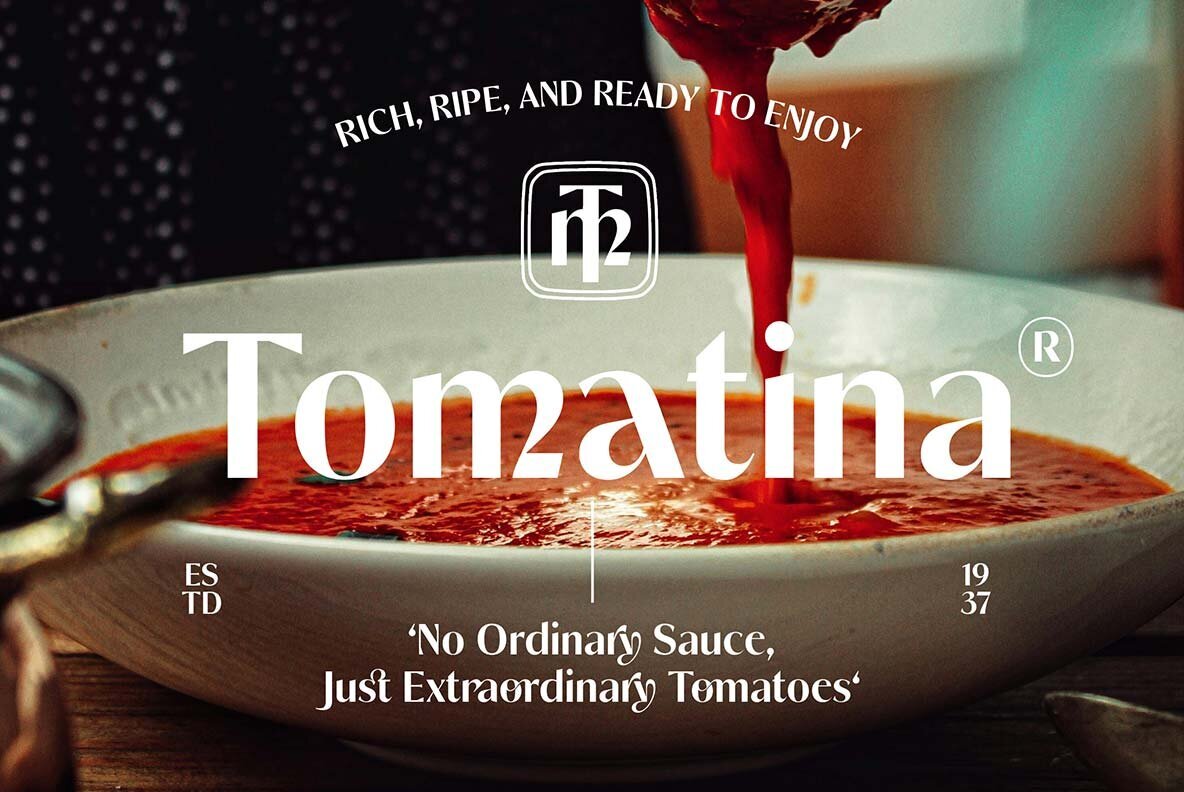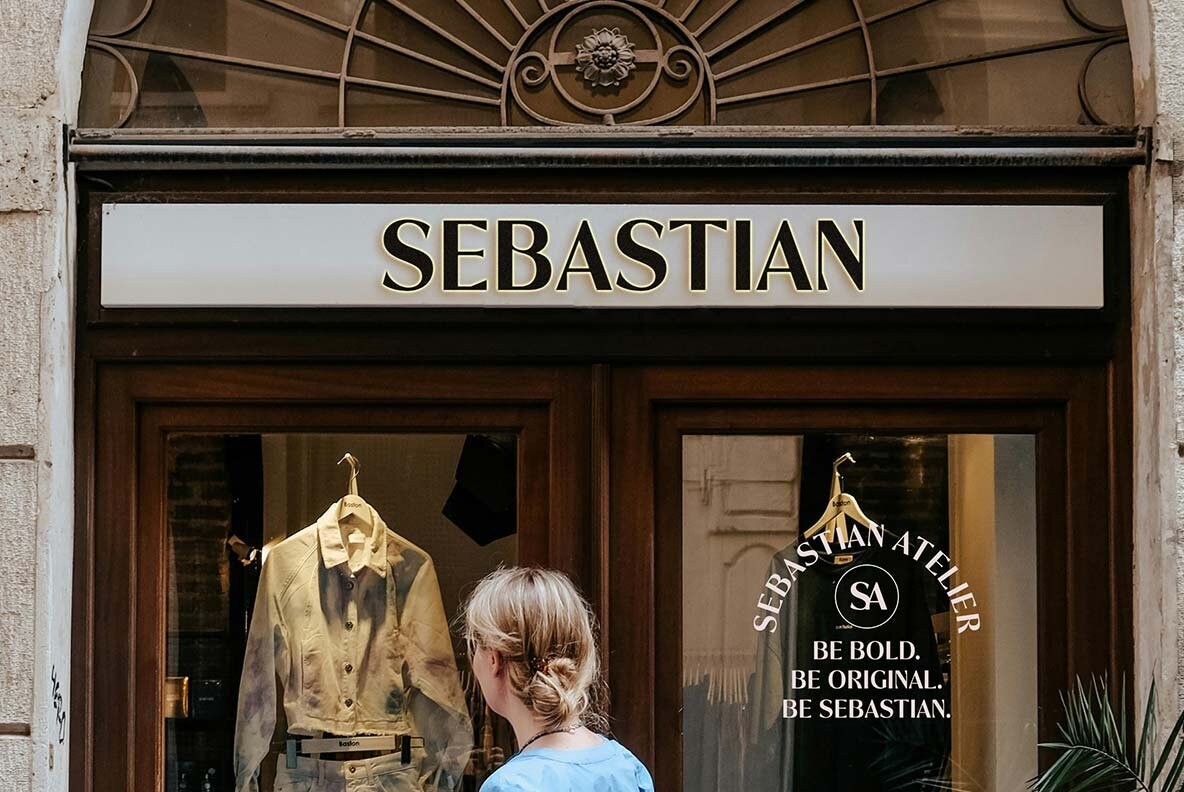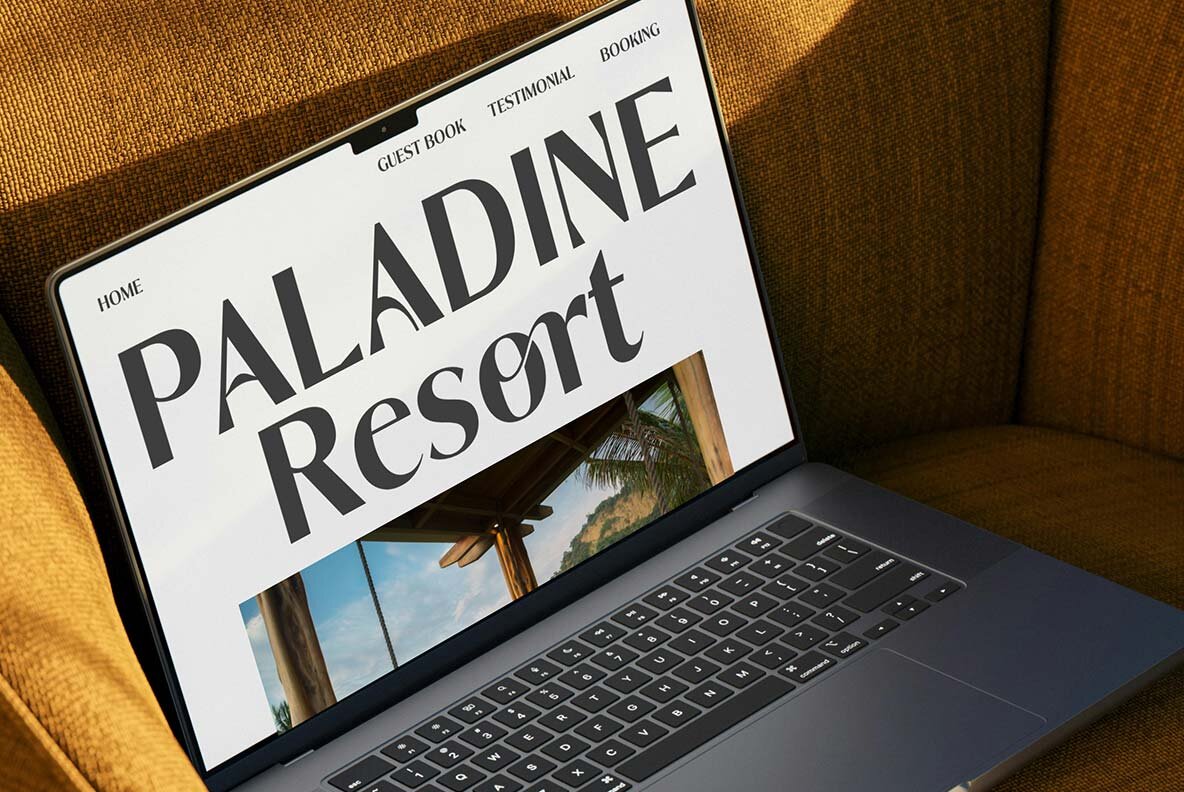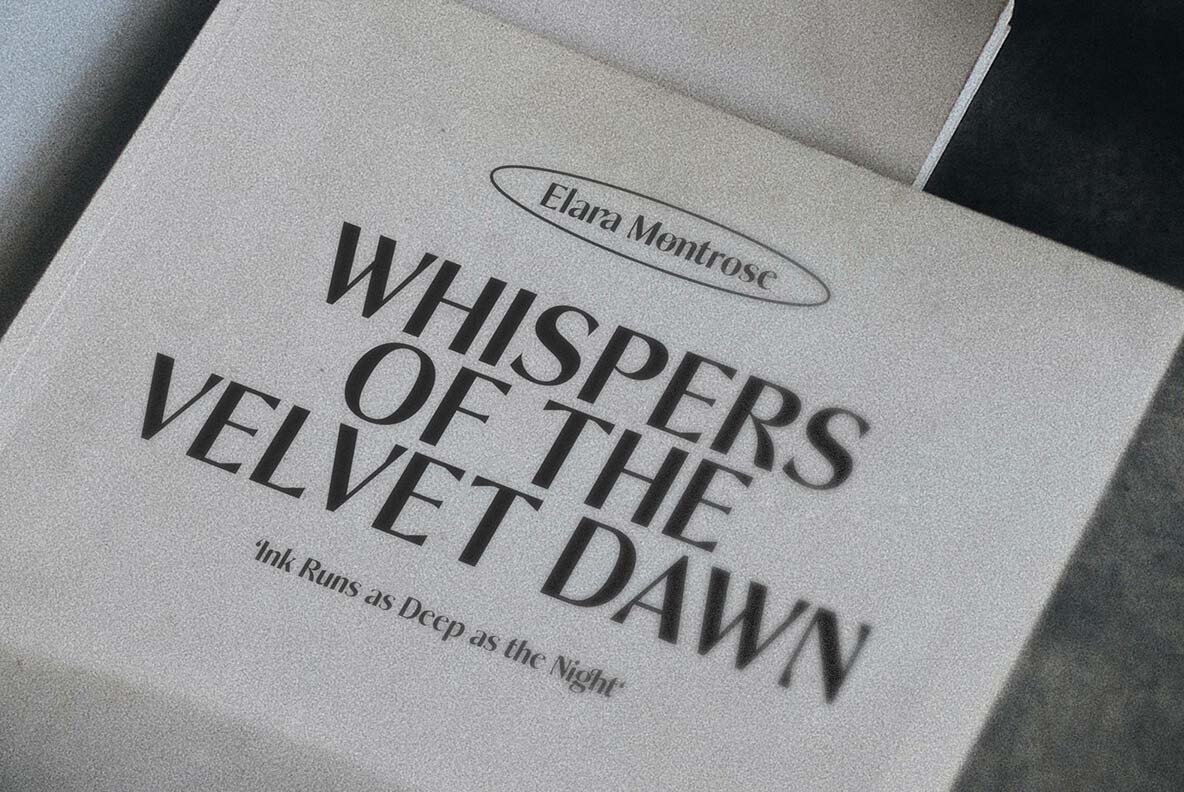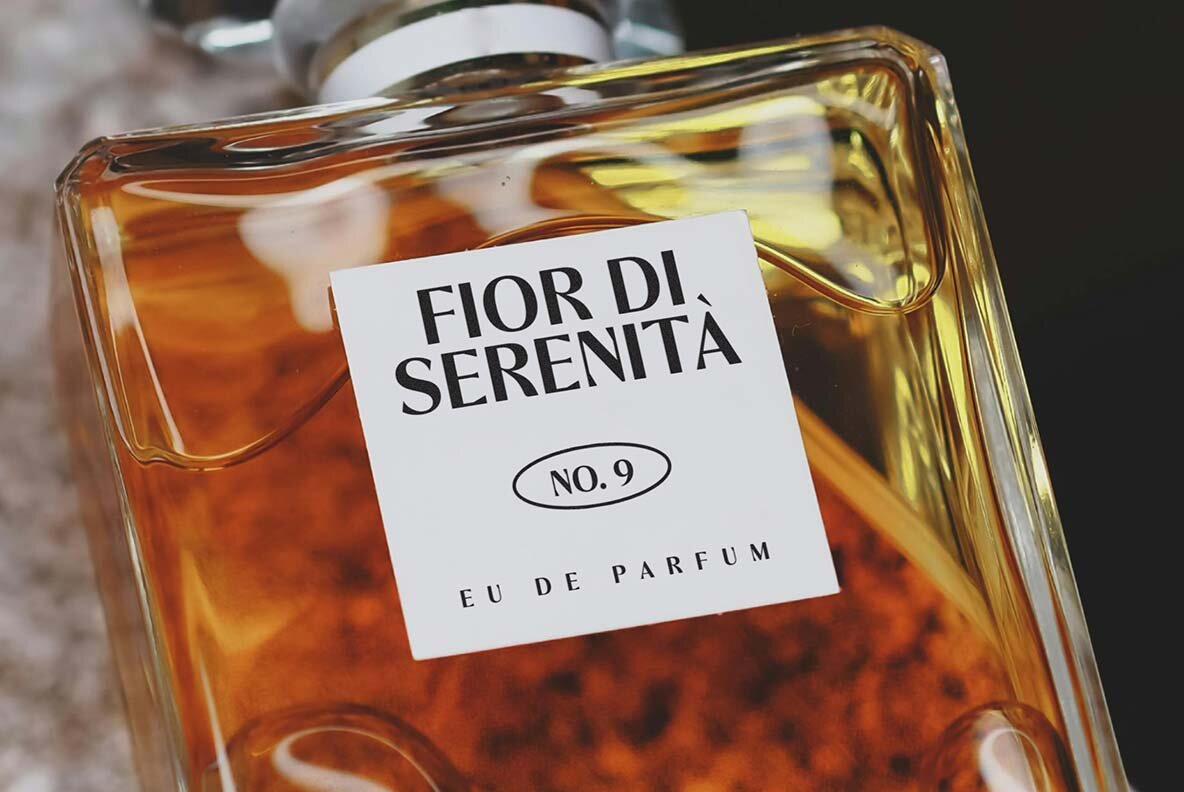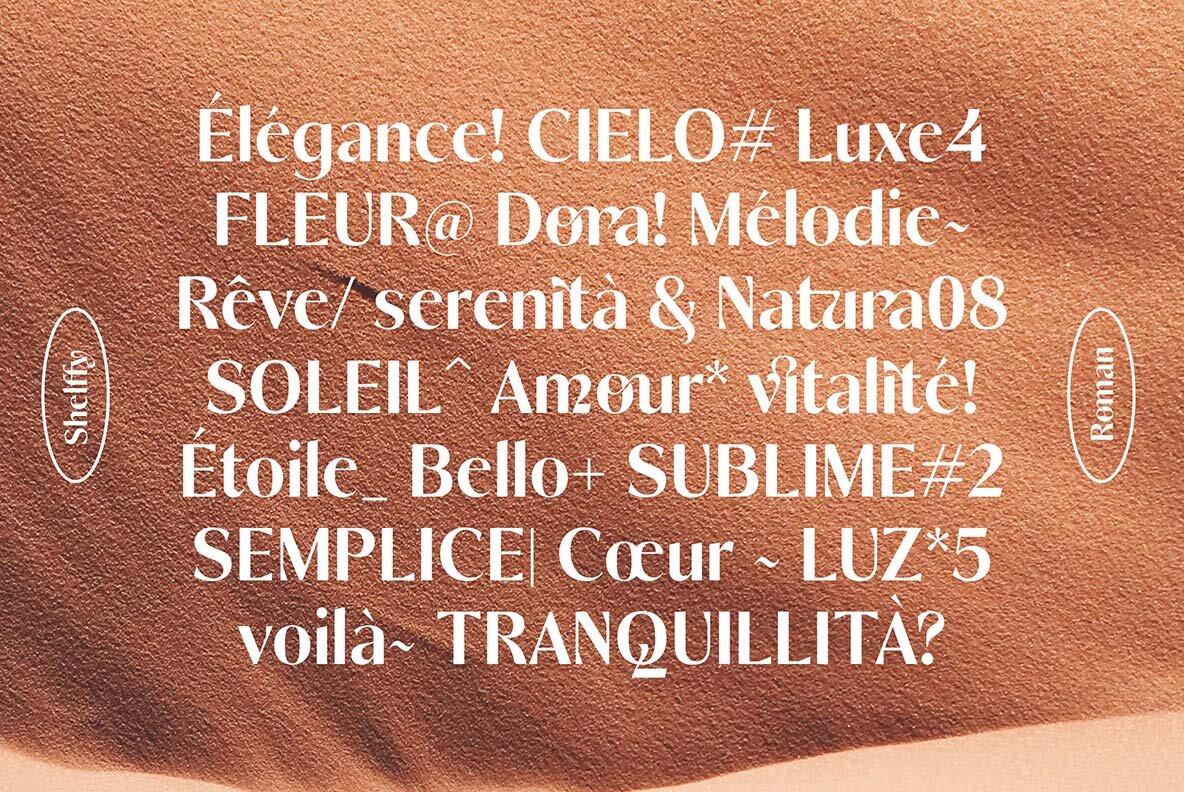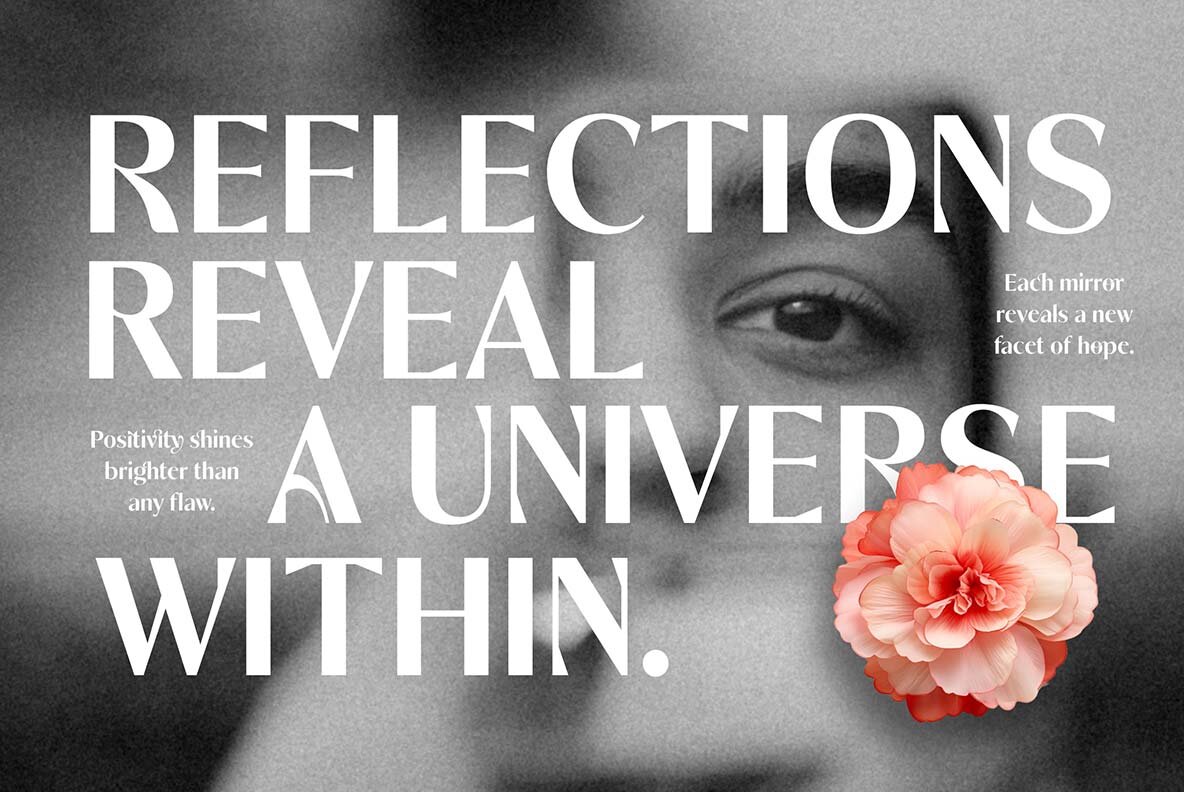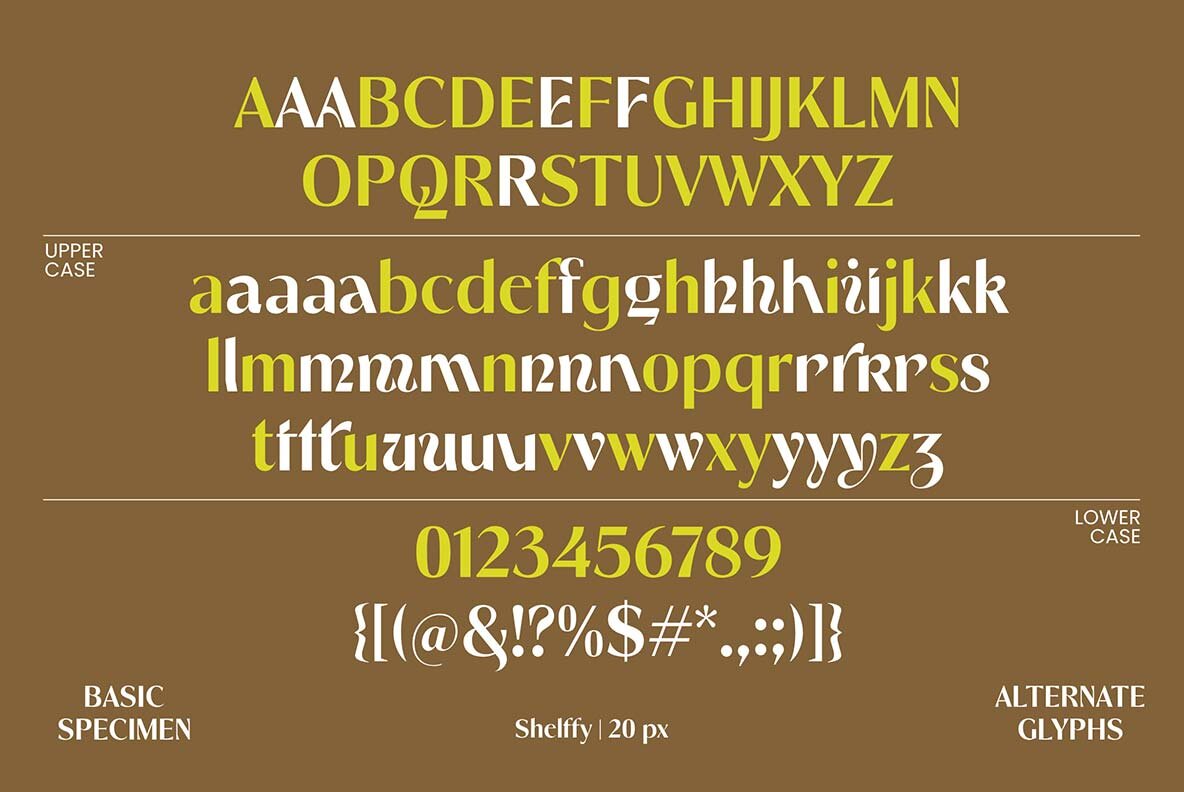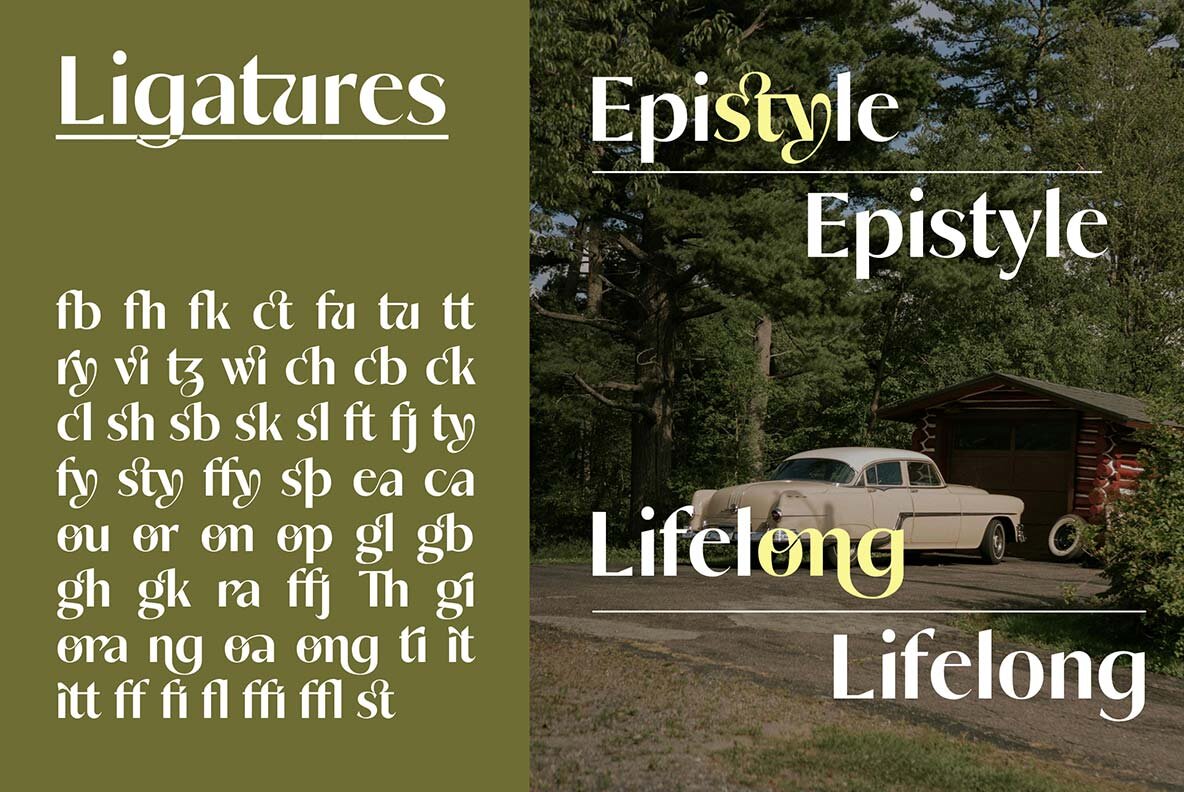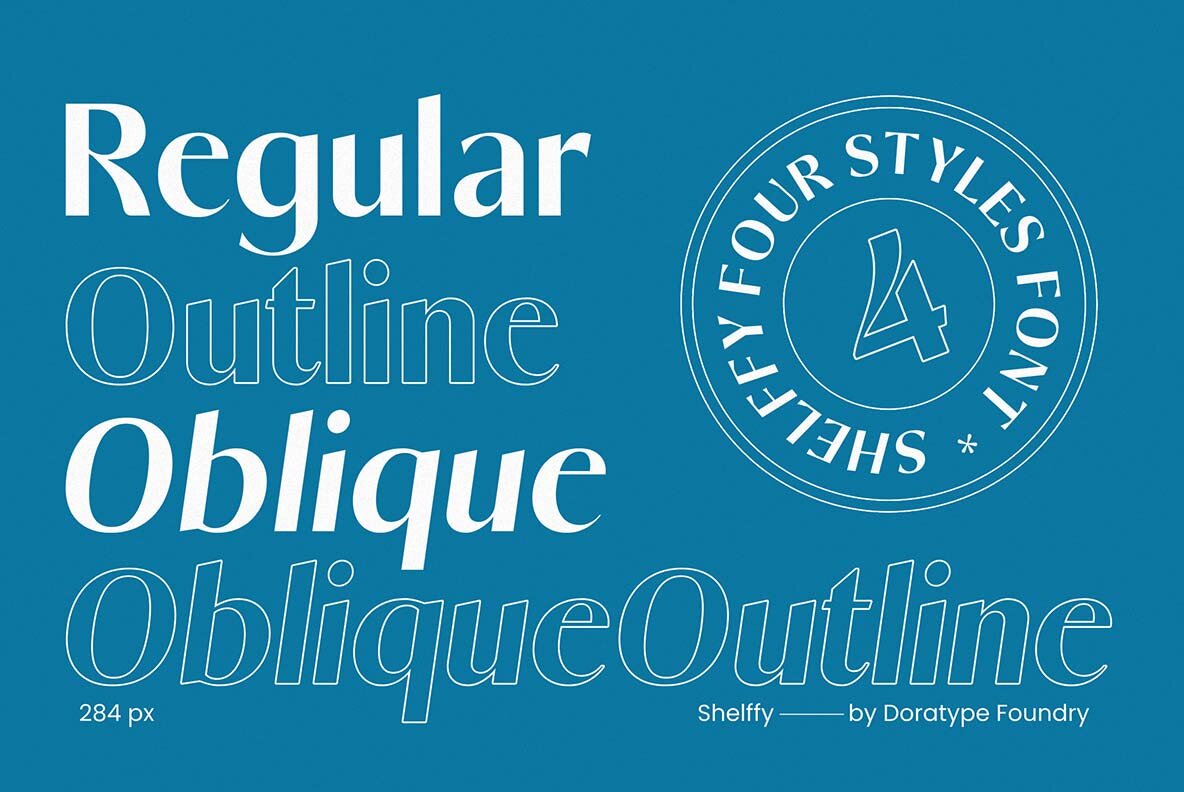
Shelffy Font
Shelffy is a Sans Serif display font that seamlessly combines balanced proportions with elegance. Its clean lines are crafted to capture attention without overwhelming the viewer, making it an ideal choice for diverse applications ranging from marketing materials to user interfaces.